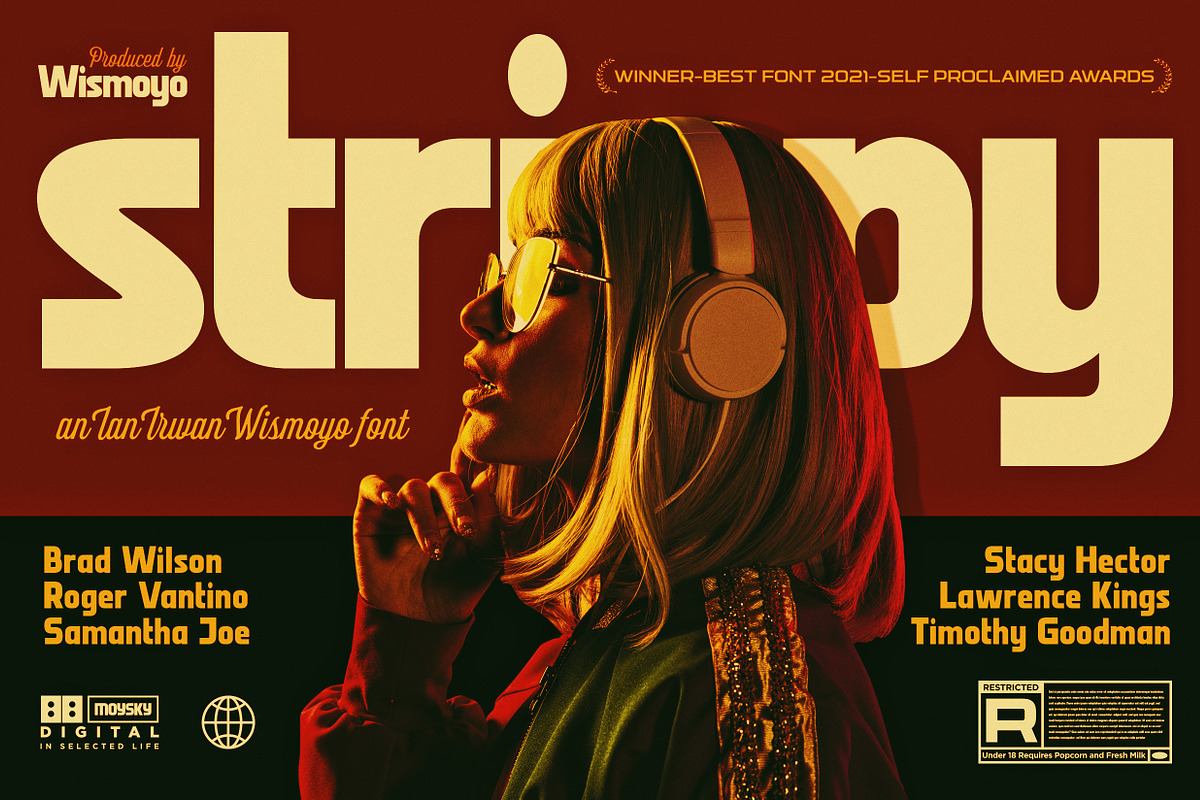
Strippy - Bold Futuristic Fonts Free Download
Strippy – Bold Futuristic Fonts Free Download is a cutting-edge typeface designed for the future. With its strong geometric lines, modern letterforms, and high-tech aesthetic, this font is ideal for sci-fi posters, gaming titles, tech branding, UI/UX design, and anything that needs a sleek, digital edge.
Strippy – Bold Futuristic Fonts Free Download brings boldness and innovation together in one powerful package. It’s made to stand out, whether you're crafting a logo for a startup or designing promotional materials for a tech event. Its minimal yet striking style commands attention and gives your typography a modern voice.